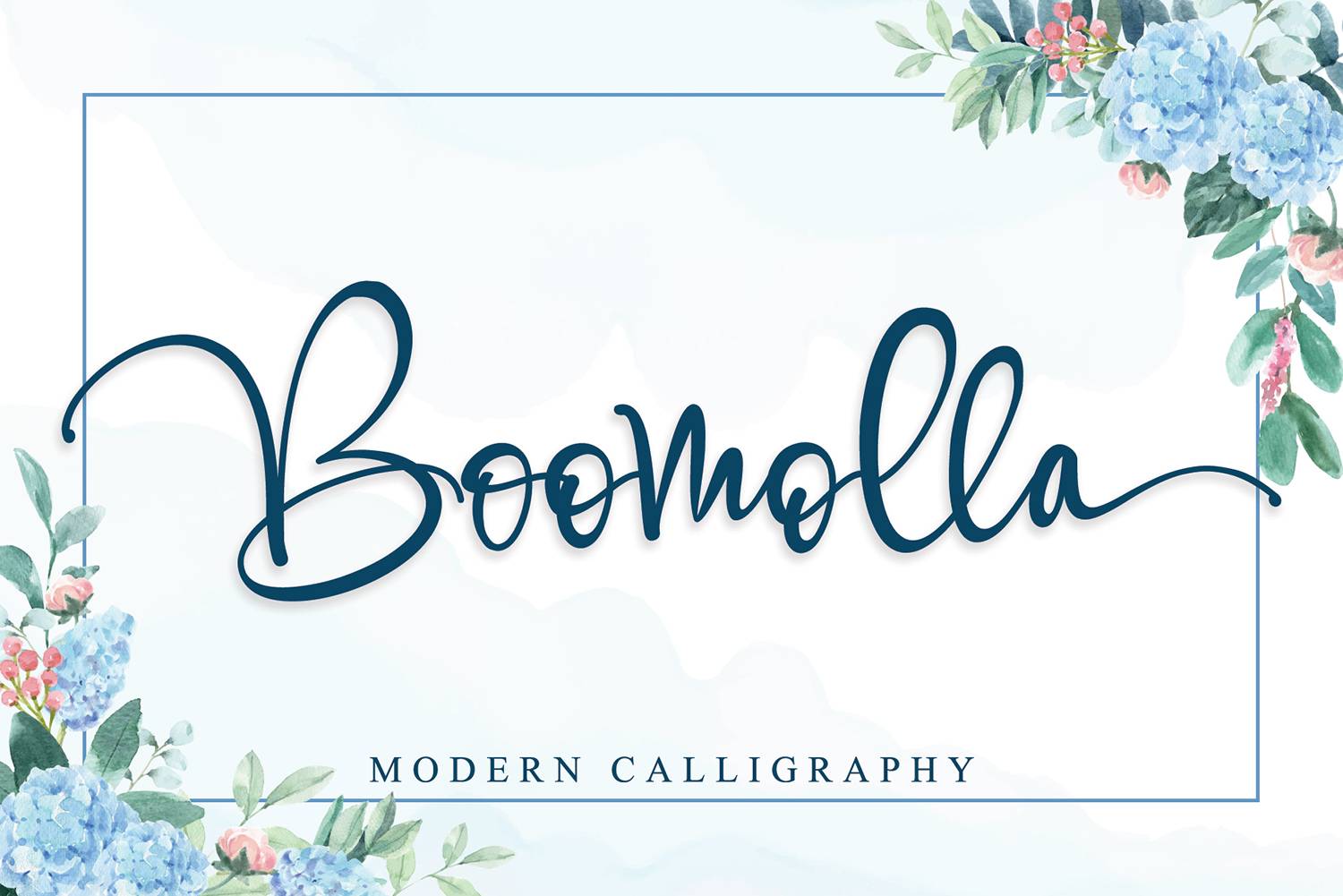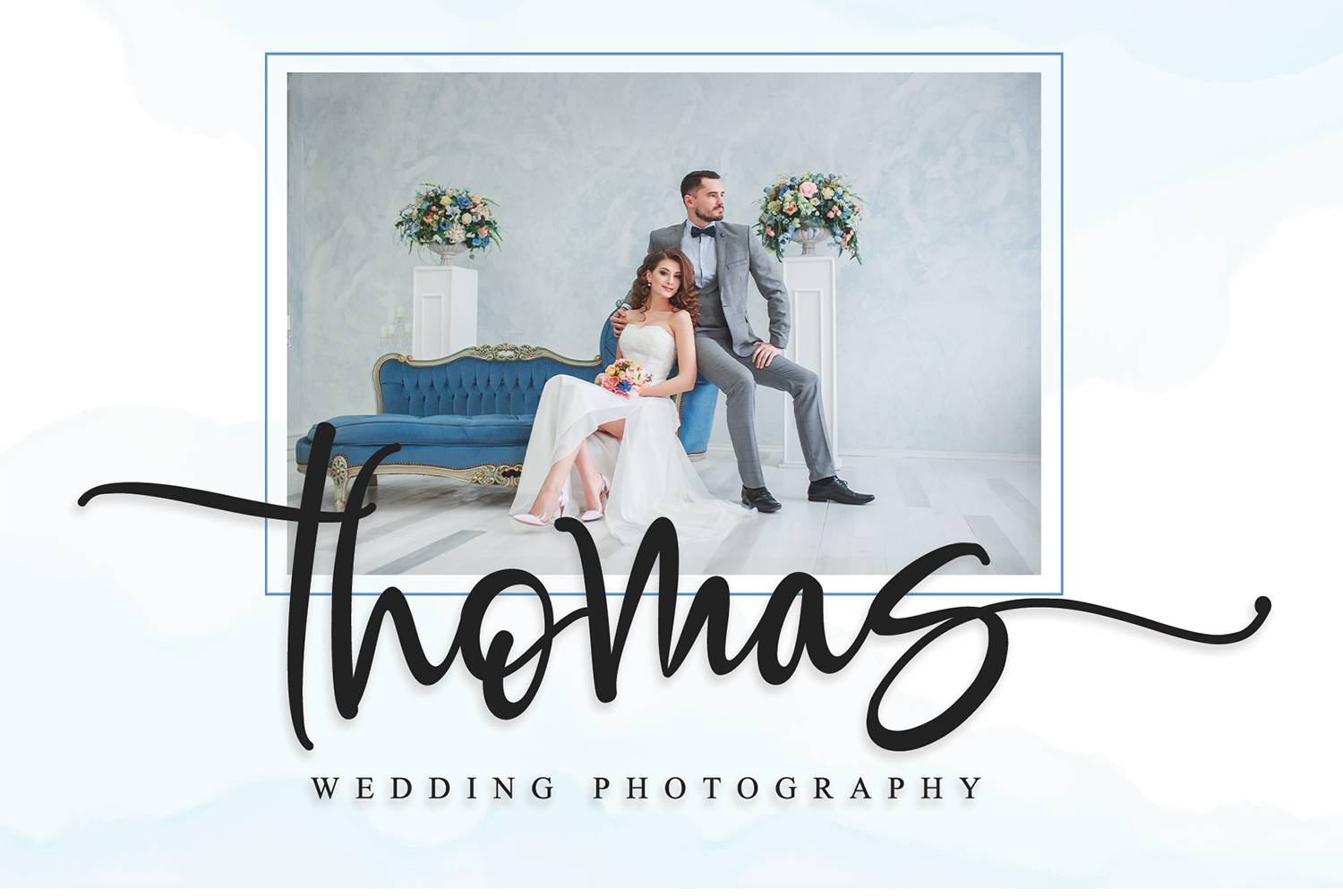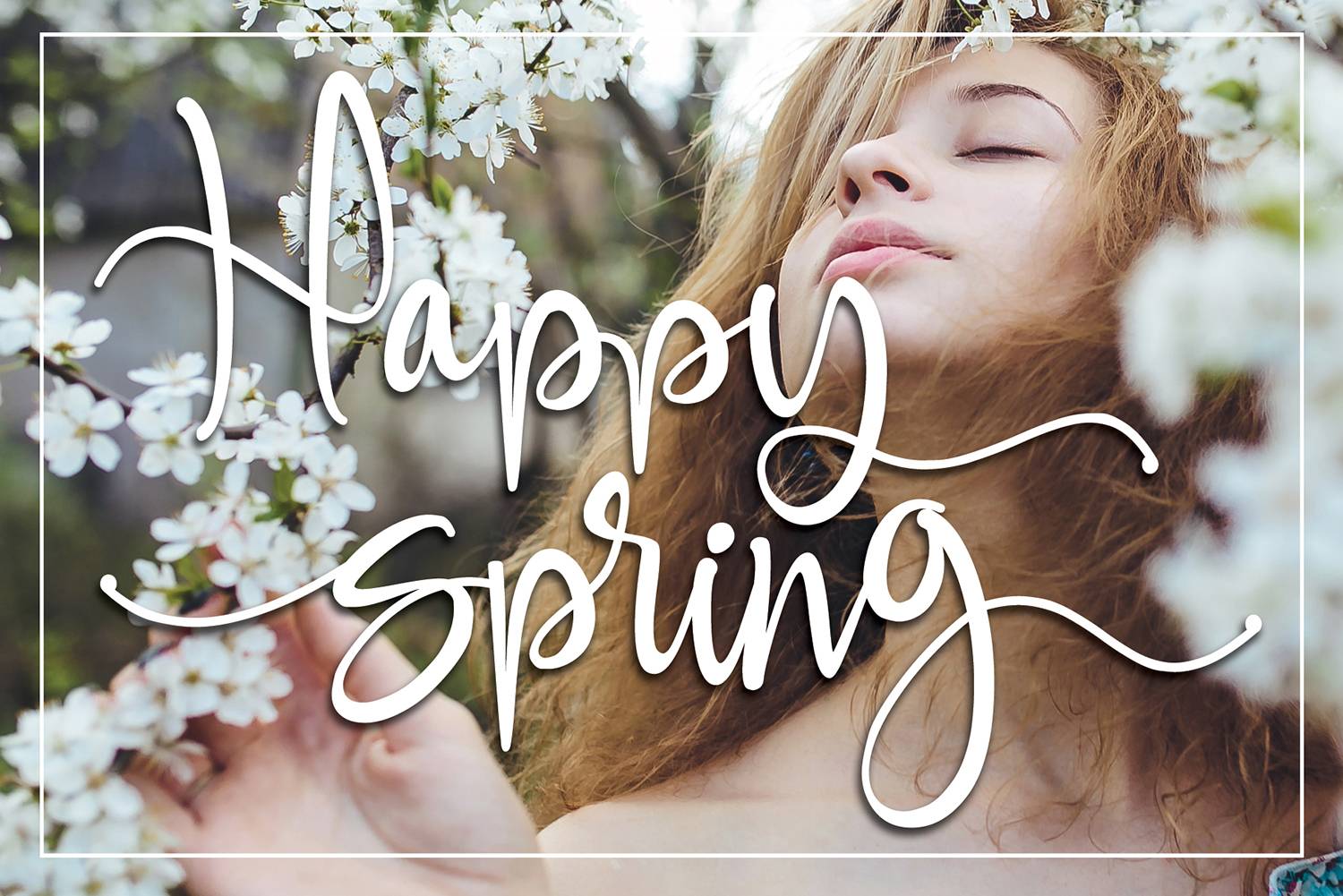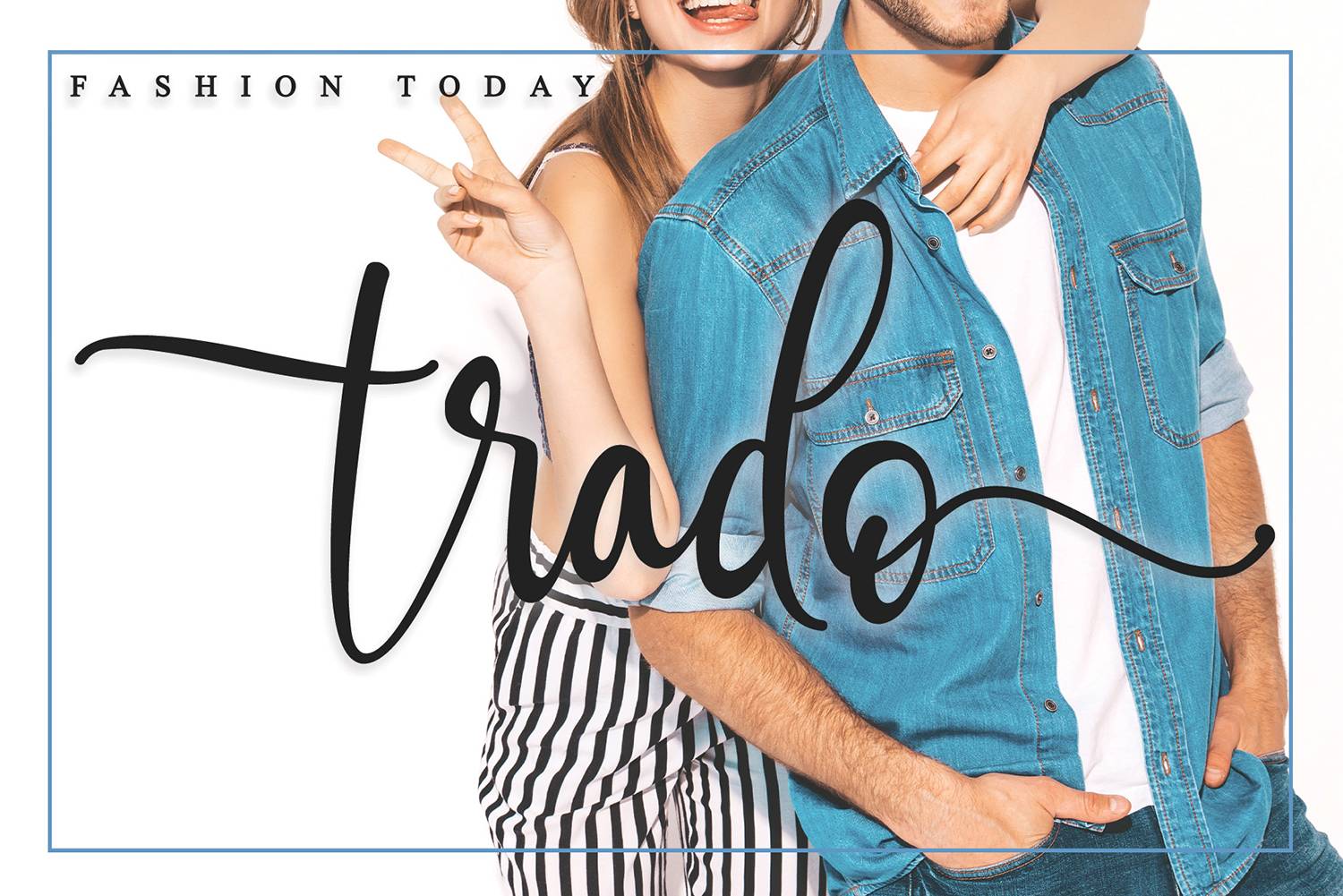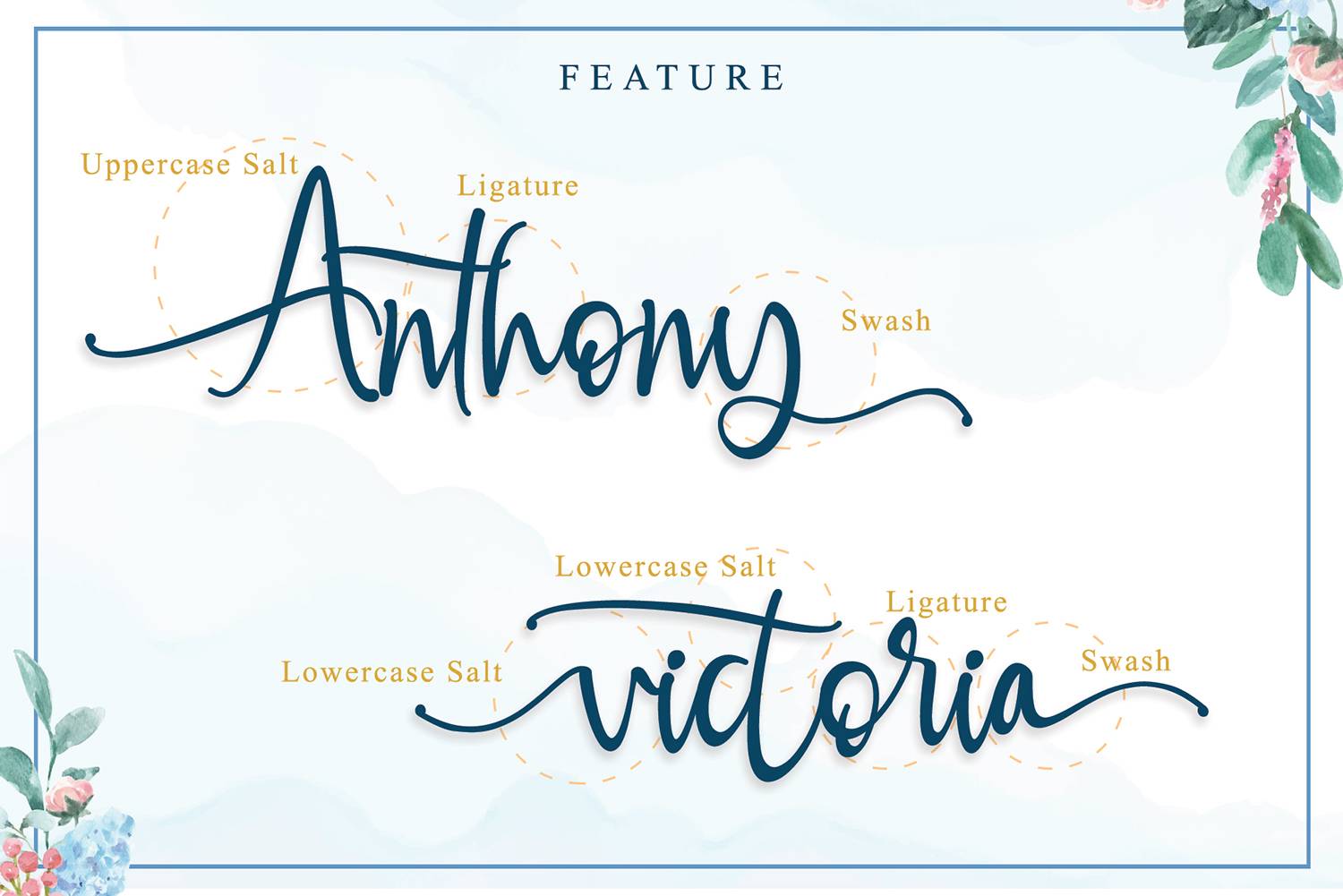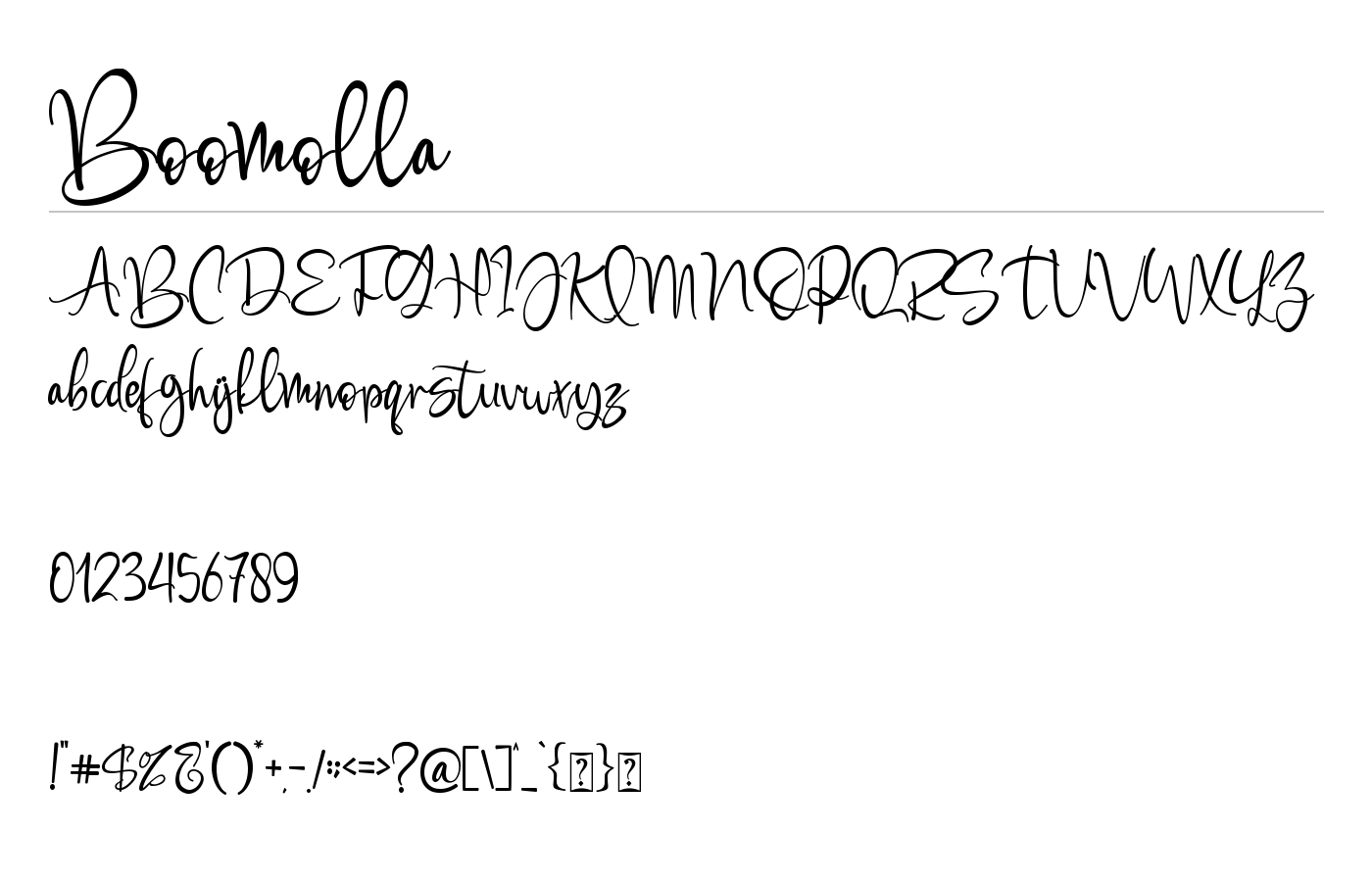
Boomolla is a playful and elegant handwritten script font with a light, airy feel and fluid, flowing letterforms. Its tall, narrow characters and whimsical strokes give it a creative, personal touch, making it ideal for invitations, branding, and designs that need a friendly yet stylish appearance. This font works best in decorative uses where a touch of charm and individuality is desired.
Boomolla Font
About Boomolla Font